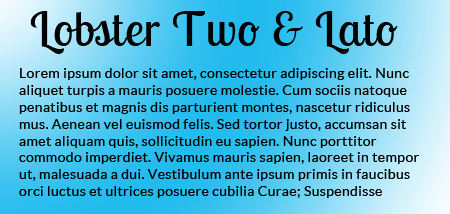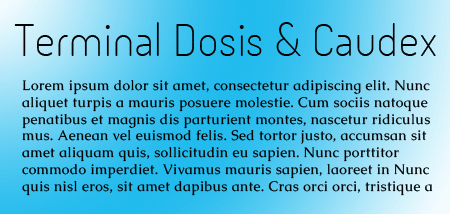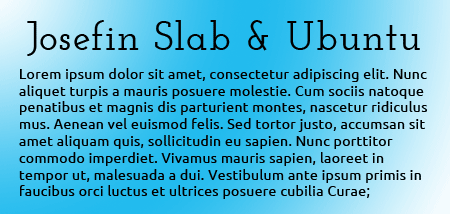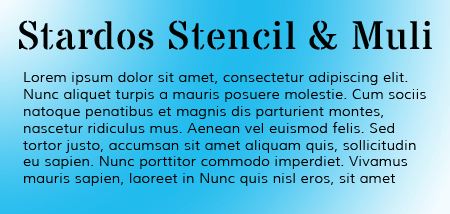
10 More Google Font Combinations for You to Use
This post is inspired by an article at Design Shack which has been a bit of a reference point for me over the past few months. The post list ten great Google font combinations – but since then lots of new fonts have been released, so I thought I’d do my own Google Font combinations that you can use.
Lobster Two & Lato
Lobster Two and Lato fonts
Lobster was a début font from Pablo Impallari, and one of his most recent offerings has been Lobster Two – Lobster, but with less of a slant. It’s a beautiful font for headings. I’ve paired it here with Lato – a plain sans serif that lets Lobster Two really shine.
Terminal Dosis & Caudex
Terminal Dosis and Caudex
Terminal Dosis is a beautiful sans-serif which is great for headings. The fine nature of the font makes it difficult to read for large amounts of text, but it looks stunning, especially when set alongside an ornate serif like Caudex.
Josefin Slab & Ubuntu
Josefin Slab and Ubuntu
Josefin Slab is a modern slab serif font with clean, blunt serifs. I’ve used the semi-bold 600 version here as I feel that 400 is too fine. It’s complemented well by Ubuntu, a futuristic sans-serif with clean curves and blunt arms.
Stardos Stencil & Muli
stardos stencil and muli google fonts
Stardos Stencil is a serif stencil font which I’m a fan of because, unlike many stencil fonts, it’s subtle and remains readable. I think it looks great with Muli, a modern sans-serif which itself has a slightly stencil-ish feel.